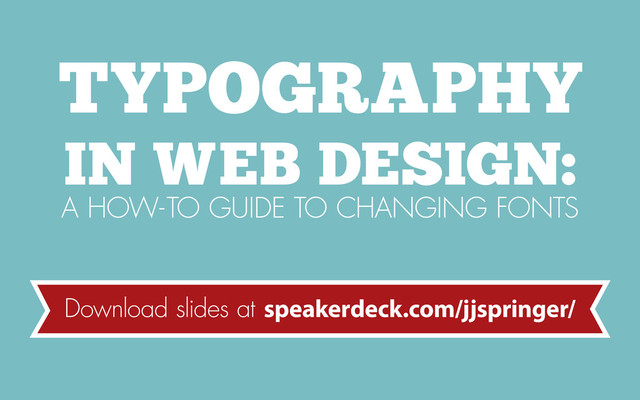
Typography in Web Design: How to Change Your Fonts
Typography in Web Design: How to Change Your Fonts
1. TYPOGRAPHY IN WEB DESIGN: A HOW-TO GUIDE TO CHANGING FONTS
2. OVERVIEW 1. Purpose of design in the web 2. Catergories
of typefaces 3. Creating hierarchy 4. How to use Google Web Fonts 5. Using WP Google Fonts Plugin 6. Typekit, a professional paid option 7 . @font-face using FontSquirrel
3. DESIGN MATTERS • Confusing • No authority • Hurts the
eyes • Where’s the info • Untrustworthy • What’s the message?
4. DESIGN MATTERS • Boring • Not exciting • Amatuer •
Quickly done • Easier to read, but I wonder how much you really care
5. DESIGN MATTERS • Interesting • Easy info • Exciting •
Authorative • Professional • Can finally focus on the cute cat!
6. What is the purpose of a website? also for pictures
of cool cats TO CONVEY INFORMATION!! &
7. SLAB SERIFS Light weights: feminine, deliciate, frail Heavy weights: bold,
daring, attention-seeking *Serifs and line width are the same* RT
8. SANS SERIFS Modern, Laid-Back, Impactful EASY TO READ! - Good
for older audiences, non-native speakers, people with learning disabilities, and great at small sizes IMAGE COPYRIGHTED ADOBE TYPEKIT
9. FONTS TO NOT USE! Blackletter - Hard to Read Novelity
Fonts - No one takes me seriously Cursive Fonts - Doesn’t render well
10. WHAT TO USE AND WHERE 1. Catergorize • Too many
menu items • All on homepage • Confusing I don’t know where to look to find what I want
11. WHAT TO USE AND WHERE 2. Prioritize • Things are
grouped, but not clear • What do you want to show first? Easy to read, hard to find what I’m looking for
12. CREATE HIERARCHY You need to know what you need to
assign values to, so break down your info h1 - Site Title h2 - Page Headline h3 - Tagline h4 - Section Headline
13. VISUAL WEIGHT The more important the information, the more visual
weight. Where does my eye go? bold, ALL CAPS, Size, HighContrast, Color
14. BODY COPY Body copy is the majority of your information
“Copy” is a term for the written content of a web or print piece Headlines are interesting & bold Body copy is helpful & boring
15. GOOGLE WEB FONTS Download the fonts for Photoshop Type a
statement you want to preview Select options you want
16. GOOGLE WEB FONTS Click Arrows and Sliders to Change the
Options Fonts will Automatically Update
17. GOOGLE WEB FONTS Click on pop out button to see
all glyphs, font faces, and copyright info
18. GOOGLE WEB FONTS Click “Add to Collection” button when done
and bottom box pops up. Click the “Use” button to continue.
19. Click which fonts you want to download from the selected
typeface Google will warn you how long your fonts will take to load Google will give you the code to add and how to use it in your CSS
20. GOOGLE WEB FONTS Locate the CSS code you want to
apply font to Paste Google CSS code here. Then save and refresh browser
21. WP GOOGLE FONTS PLUGIN Plugin, Free Service, Easy, Minimal Coding
Experience Required wordpress.org/extend/plugins/wp-google-fonts/
22. WP GOOGLE FONTS Click on the drop-down menu and select
which font you want Install and activate the plugin. Click “Settings” button This always lives in menu under “Settings”
23. WP GOOGLE FONTS Click on the element from a pre-selected
list Or type in your own CSS Click “Save All Fonts”
24. @FONTFACE (USING FONTSQUIRREL) Not used as much anymore, FS fonts
are 100% free for commercial use, Turn your own font into a web font fontsquirrel.com
25. FONTSQUIRREL Can make any @fontface from fonts that you create
or own (check copyright first before making fonts) Search by category Search by name
26. FONTSQUIRREL Click on the font that you are interested in
Tells you if there are different styles of this font available
27. FONTSQUIRREL You can select which font formats you want to
download, just go ahead and download them all. Different browsers render the fonts differently, so you need various formats so everyone can see your fonts
28. FONTSQUIRREL Zipped file will include the CSS code, the font
in different formats, a license (that includes copyright), and normally a demo of the font so you can test it
29. FONTSQUIRREL You will need to pull over those fonts into
your theme folder. I recommend making a new folder called “fonts” just to keep everything clean
32. FONTSQUIRREL Locate your code and add font-family For @font-face you
need to a the ‘ around the whole name. Make sure you select the correct one, different weights are called out differently. Save and refresh. Changes should be there. font-family: ‘Font Name’, sans-serif;
33. FONTSQUIRREL Now notice the rendering issues that can occur and
that’s why @font-face isn’t being used as much anymore Firefox Chrome